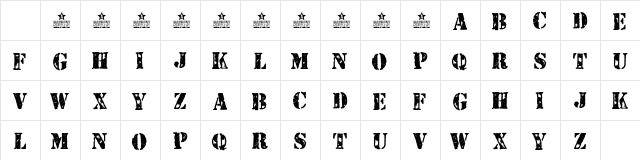
STENCILED PERSONAL USE borrows the utilitarian aesthetic of stencil lettering, with its characteristic cutaways and no-frills construction lending an industrial edge.
Pro Tip: Use STENCILED PERSONAL USE at large sizes on packaging, posters, or apparel where the stencil cutaways read clearly. Avoid small sizes where those gaps become visual noise.